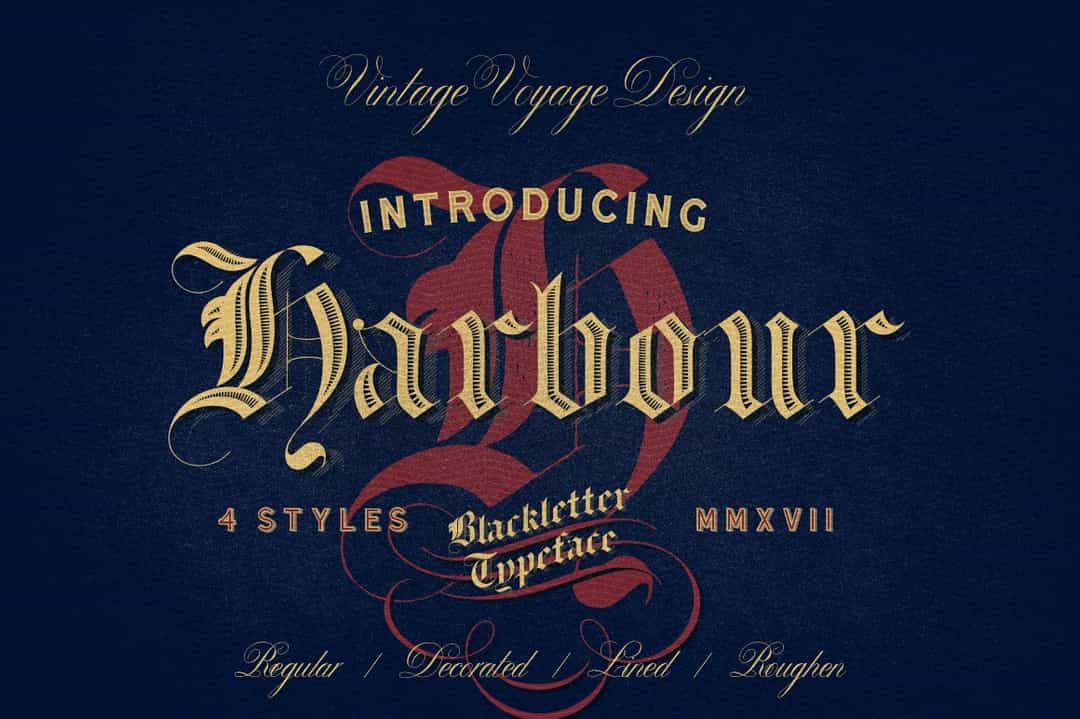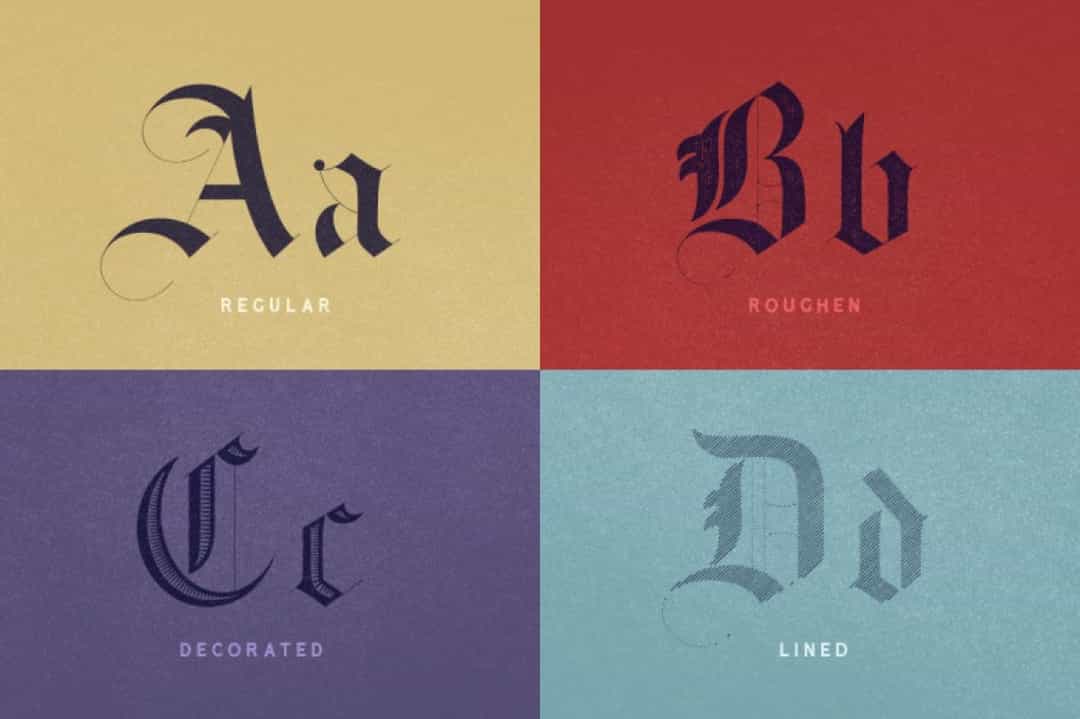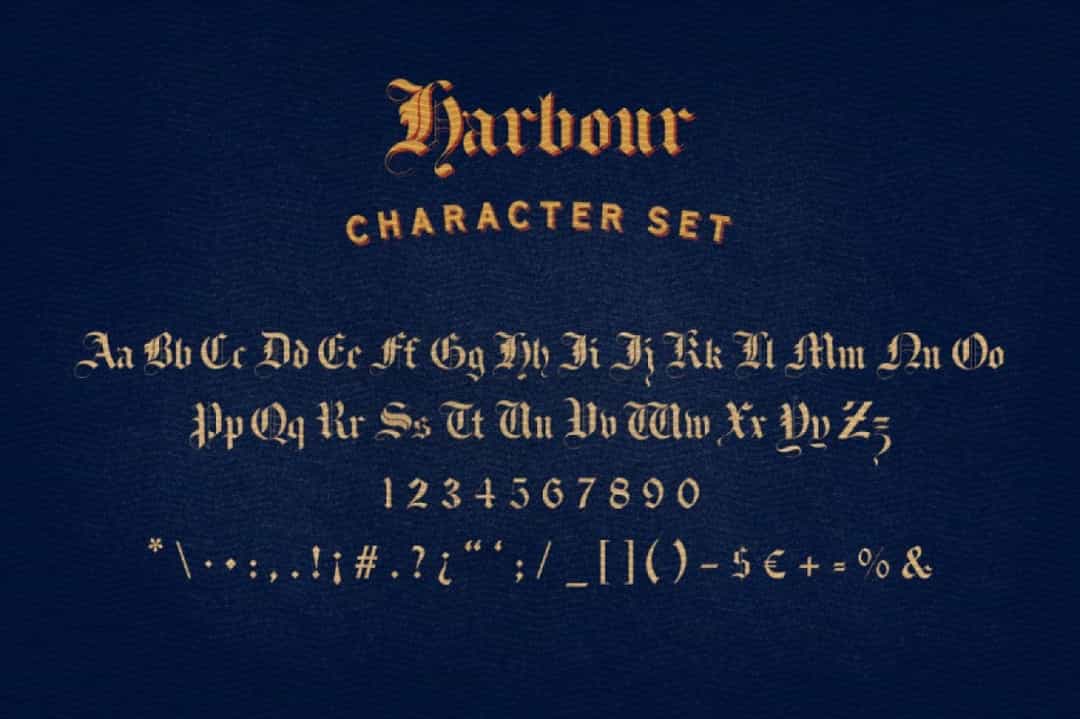
Discover Harbour Typeface, part of the Blackletter Display collection—a versatile and unique font perfect for adding a personal touch to your projects. Download it for free and enjoy crafting designs with style, from invitations to social media posts. This font is available exclusively for personal use, giving you the freedom to create without limits. Unlock your creativity with Harbour Typeface today!
Introducing Harbour Font. It is made by the Vintage Voyage Design Co. , this font, which is a premium one, can be bought on creativemarket but for today it is free to download. Harbour is a classic Blackletter Typeface comes with 4 styles: Ordinary, Processed, Unprocessed and Pattern.